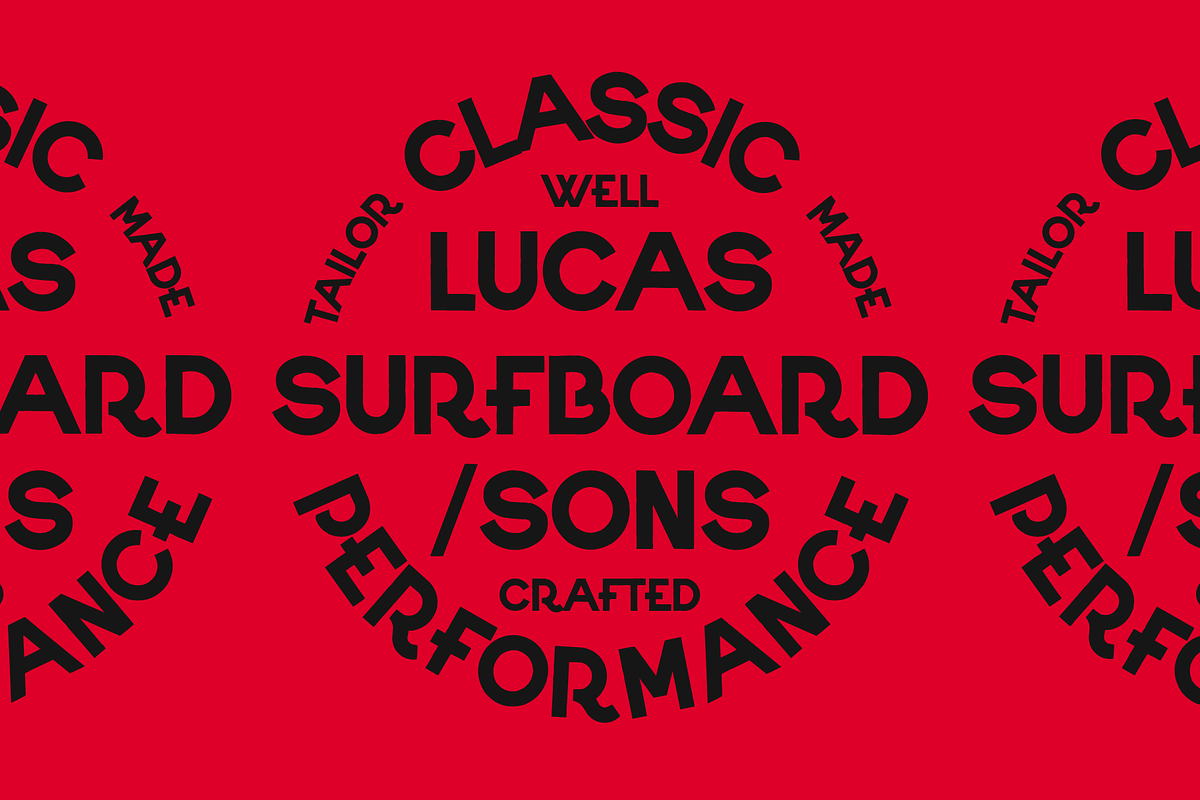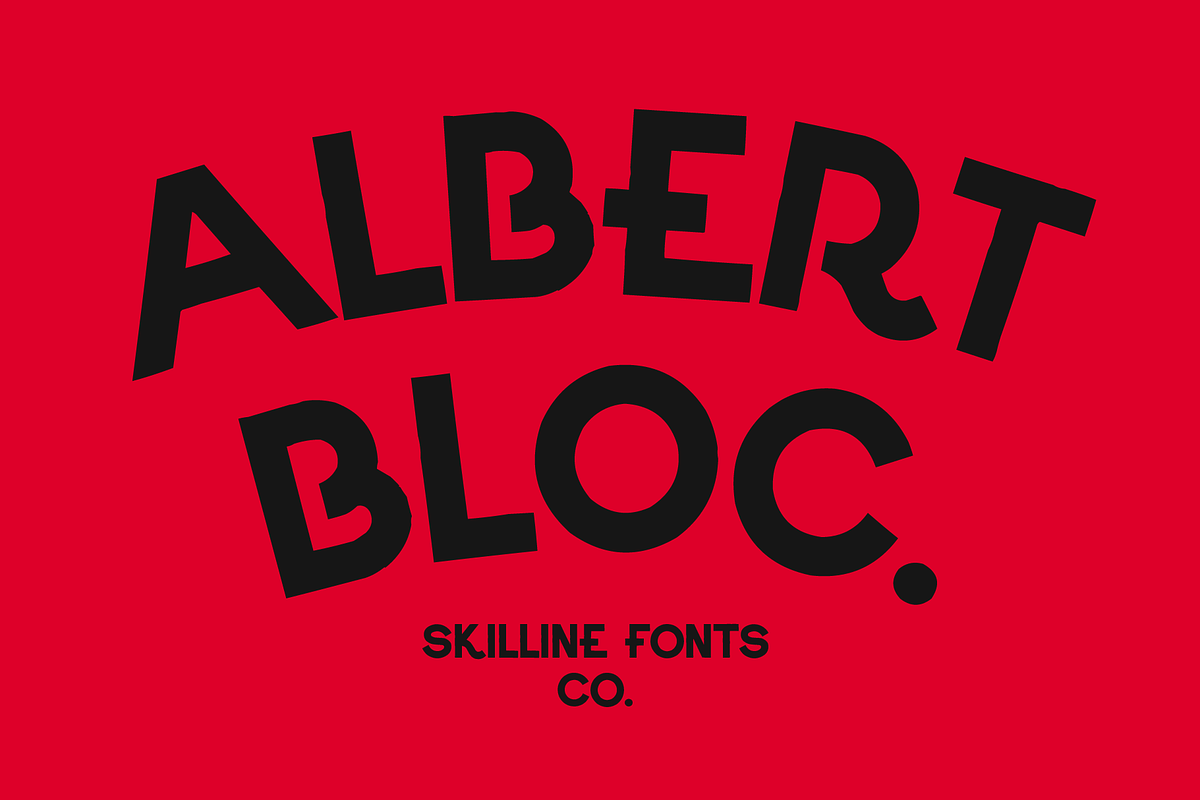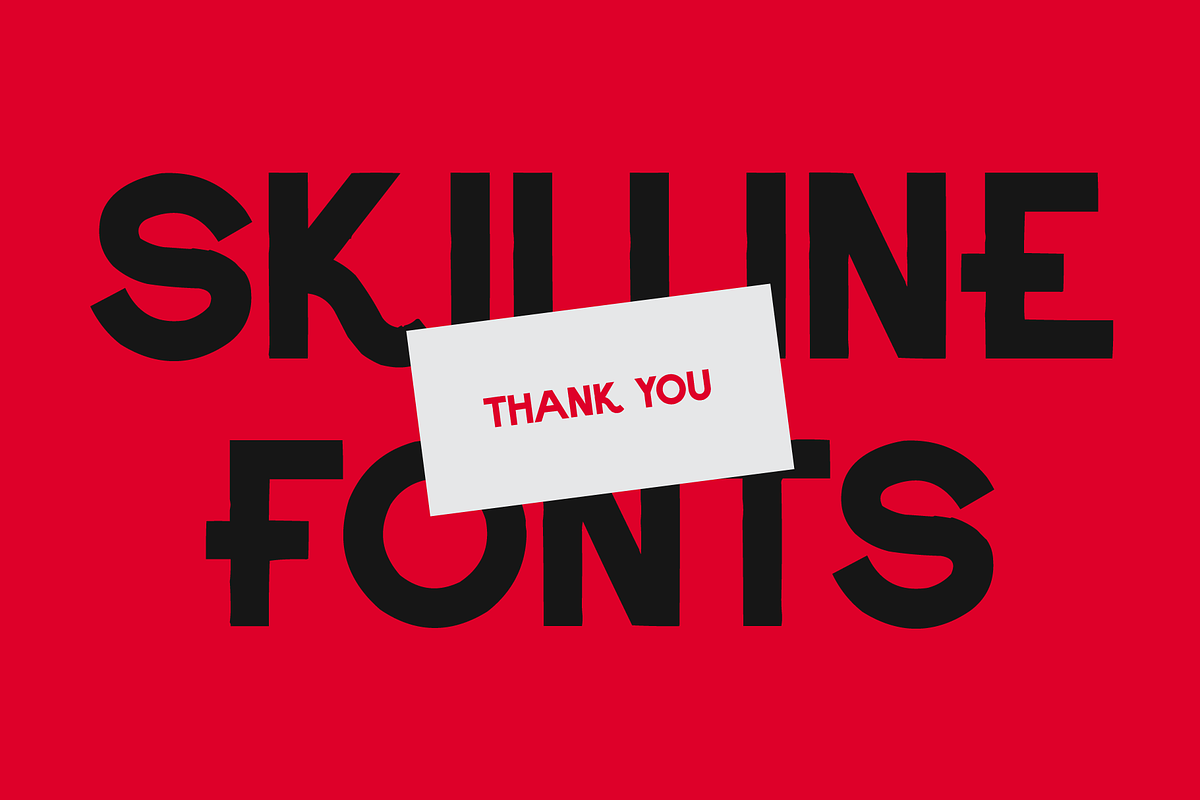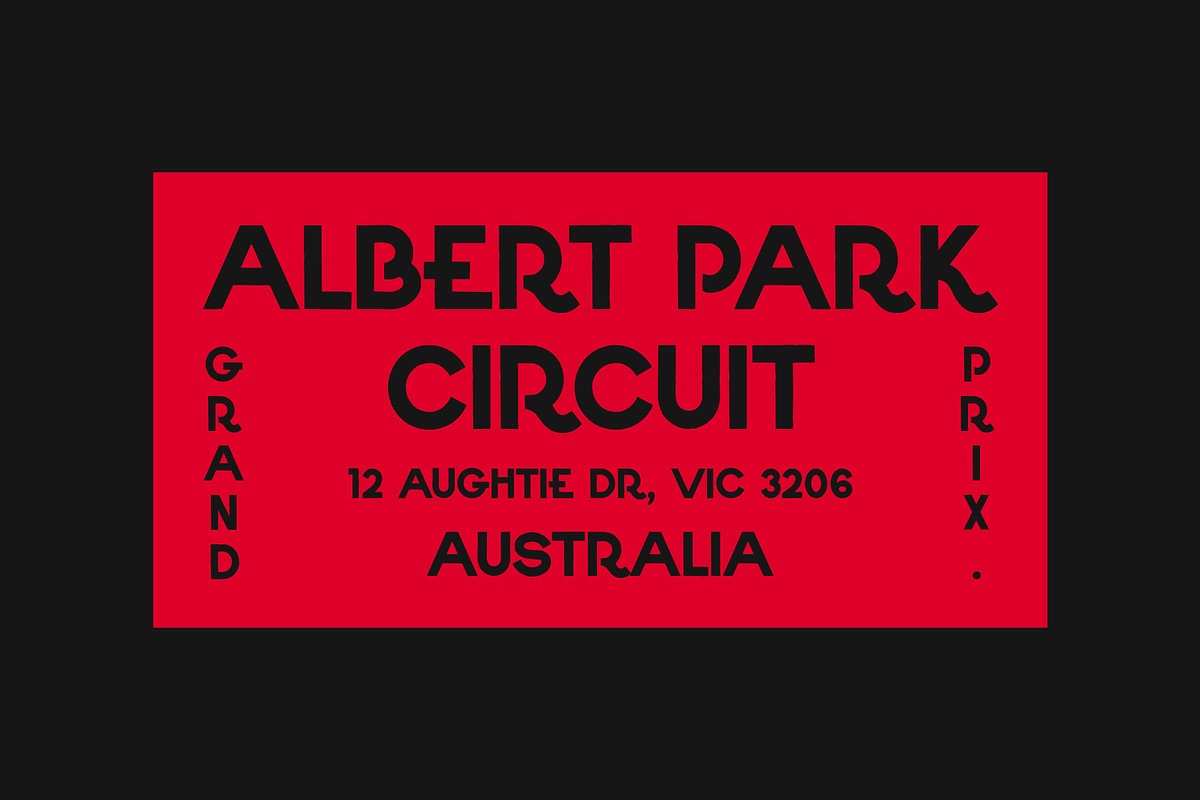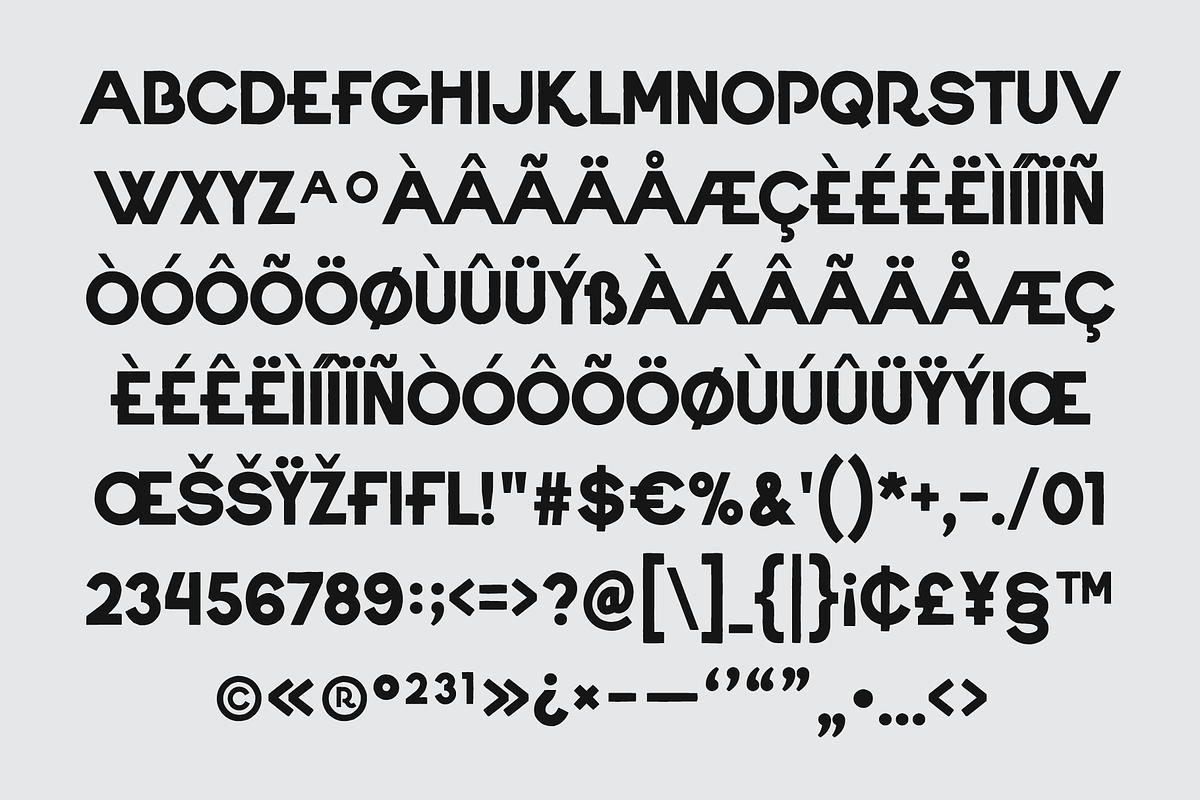
SFC Albert Bloc
Albert Bloc is a bold geometric display typeface inspired by mid-century signage, architectural lettering, and modernist graphic design. Strong proportions, rounded corners, and subtly irregular contours create a handcrafted appearance while maintaining a clean, structured rhythm with a distinctive retro influence.
Designed with carefully balanced spacing and consistent construction, Albert Bloc combines solid forms with soft organic details for a confident yet approachable personality. The typeface includes extended Latin characters, multilingual support, complete numerals, punctuation, and stylistic alternates for flexible typography.